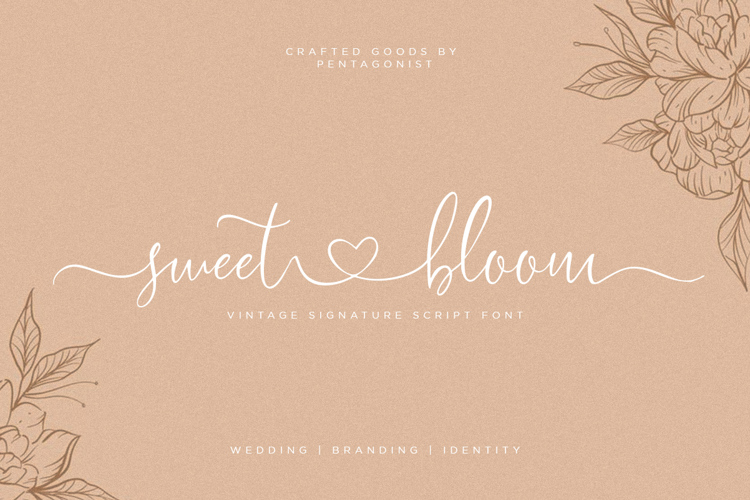
sweetbloom Font
About sweetbloom Font
sweetbloom Font is a Calligraphy font and was created on . Since then, it has been downloaded 789 times and added to 33 collections. 1 people have liked sweetbloom Font and given it a thumbs up.
Sweet Bloom Is Lovely Script Font Inspired By Handwritting Characters.